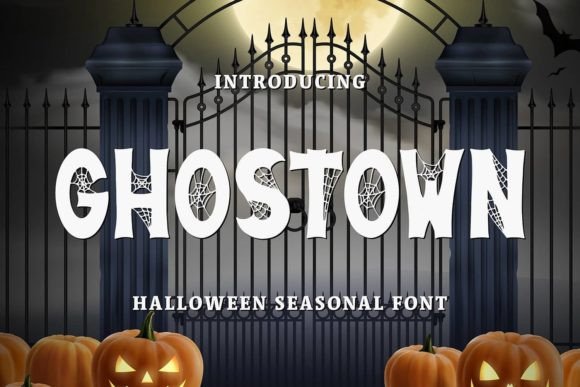
Get ready to embark on a spellbinding journey with Ghostown Font, a Halloween decorative font that exudes visual elegance and captures the essence of the supernatural. Its smooth curves and enchanting ligatures will cast a captivating charm on your designs, making them stand out with an eerie allure.
Immerse yourself in the possibilities that await you with Ghostown Font. Unleash your creativity and let your imagination run wild as you delve into a myriad of applications, including logos that exude a haunting sophistication, invitations that invite your guests to a mystical realm, and branding that evokes a sense of mystery and intrigue.
With Ghostown Font, the possibilities are endless. From the allure of magazine covers to the allure of photography, from the simplicity of cards to the elegance of product packaging, this font weaves its magic like a whisper in the wind. Its versatility extends to product mockups, mugs emblazoned with enchanting quotes, posters that come alive with eerie tales, and labels that exude an otherworldly charm.
Enter the captivating realm of Ghostown Font, a haven for signatures that leave an indelible mark, editorials that transport readers to a world of wonder, and websites that ignite the imagination. The possibilities extend to the realm of art deco, where the intricate details of this font add a touch of vintage elegance, and social media posts that cast a spellbinding charm.
With Ghostown Font, there are no limits to your creativity. Let your personal projects take flight, imbuing them with a supernatural flair. Unlock the potential of your design studio with a font that embodies the essence of Halloween. Elevate your corporate identity with a touch of haunting beauty. Unleash the creative energy of your agency, bringing your visions to life in a mesmerizing dance of lines and curves.
Ghostown Font is a font for all business sectors, catering to personal projects, studios, corporate giants, creative agencies, industrial ventures, and companies seeking to make a statement. Its versatility knows no bounds, captivating audiences in the realm of personal projects. Its versatility knows no bounds, captivating audiences in the realm of personal, captivating audiences in the realm of personal. Its versatility knows no bounds, captivating audiences in the realm of personal, captivating audiences in the realm of personal.